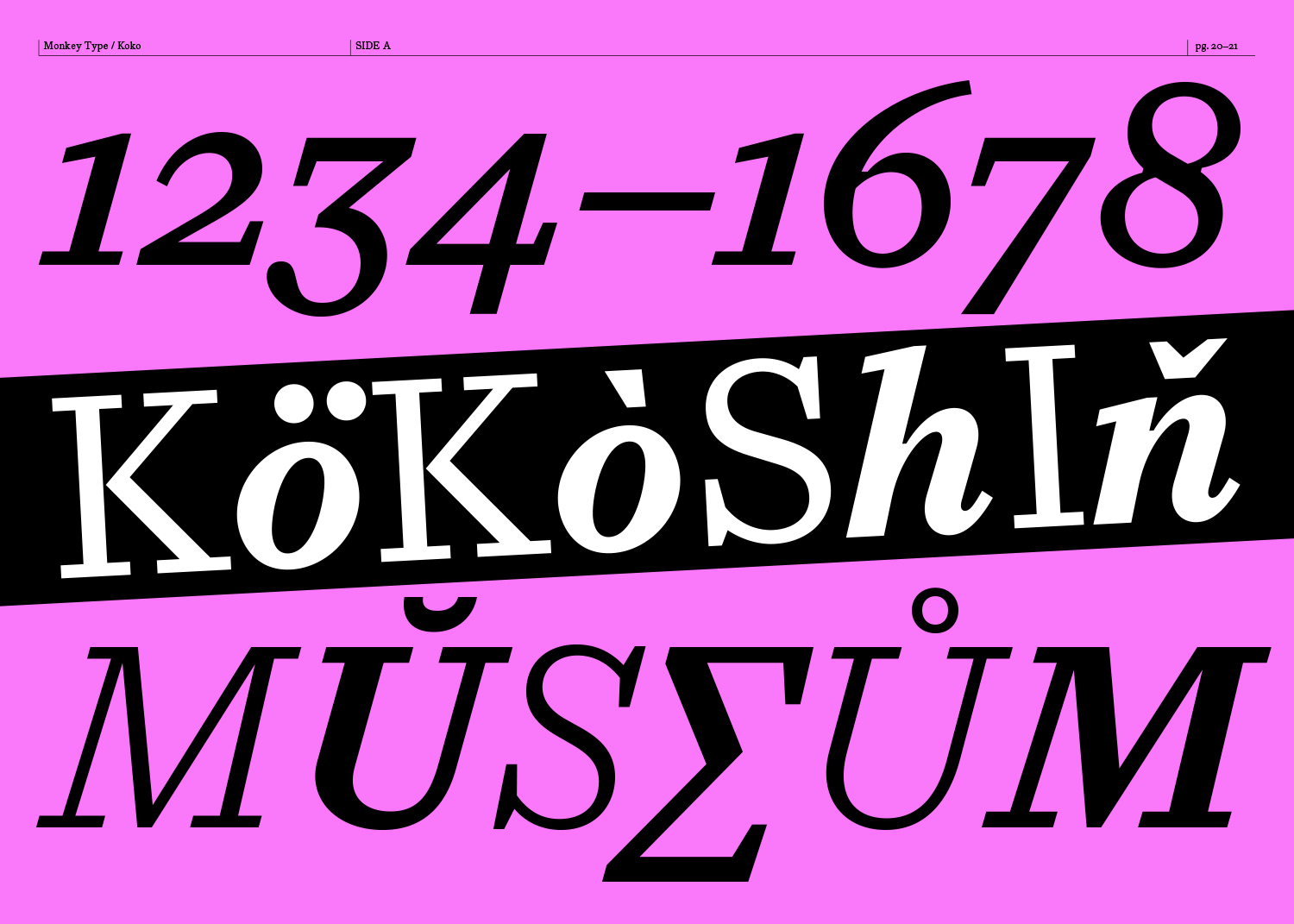
Koko spent the morning at the printworks. Clearly reminiscing about the broadsheets she handled, she draws inspiration from the classics such as Times New Roman and Plantin and reimagines them in the present day. Her squared slab serifs and sturdy stems add to her grounded appearance, which is aching to explore the more editorial typesetting contexts. With her steady italics, Koko is sure to hold the page and command the attention she deserves.